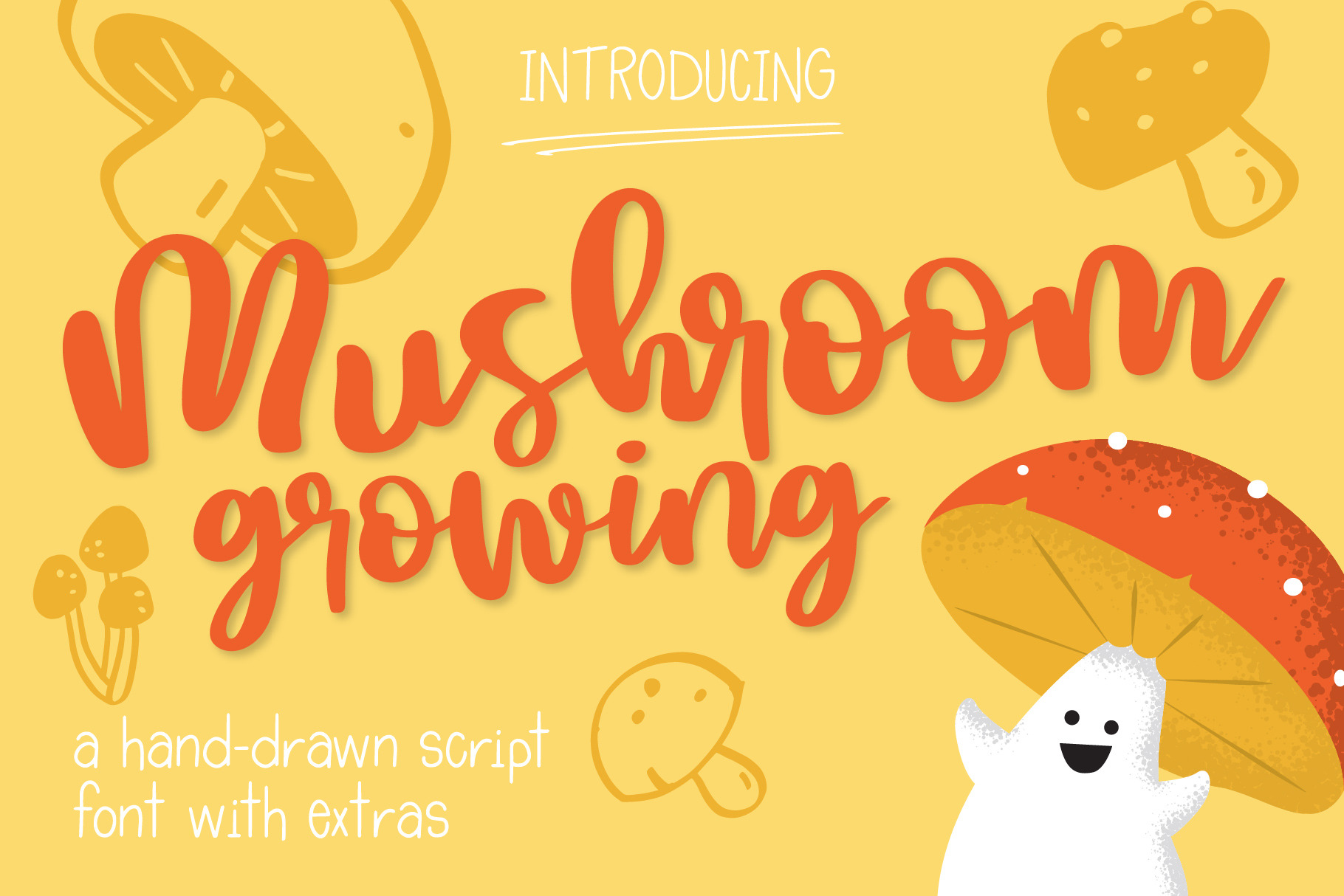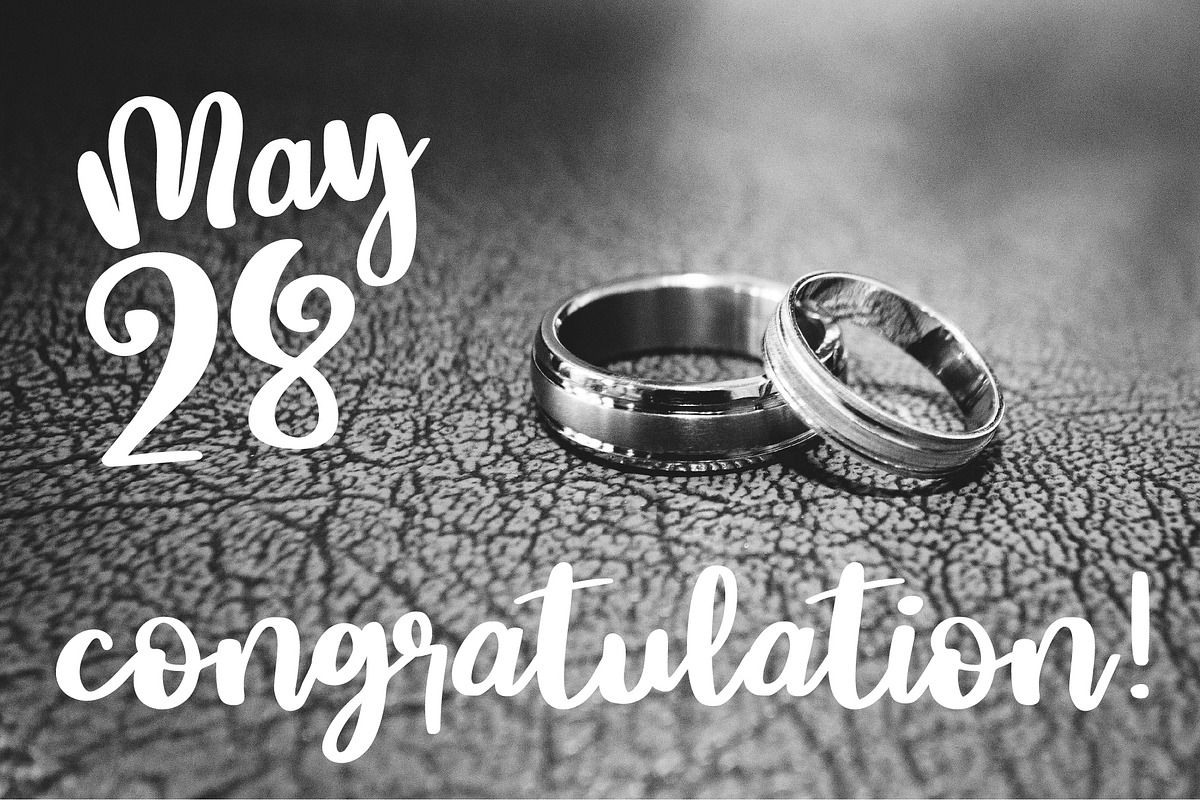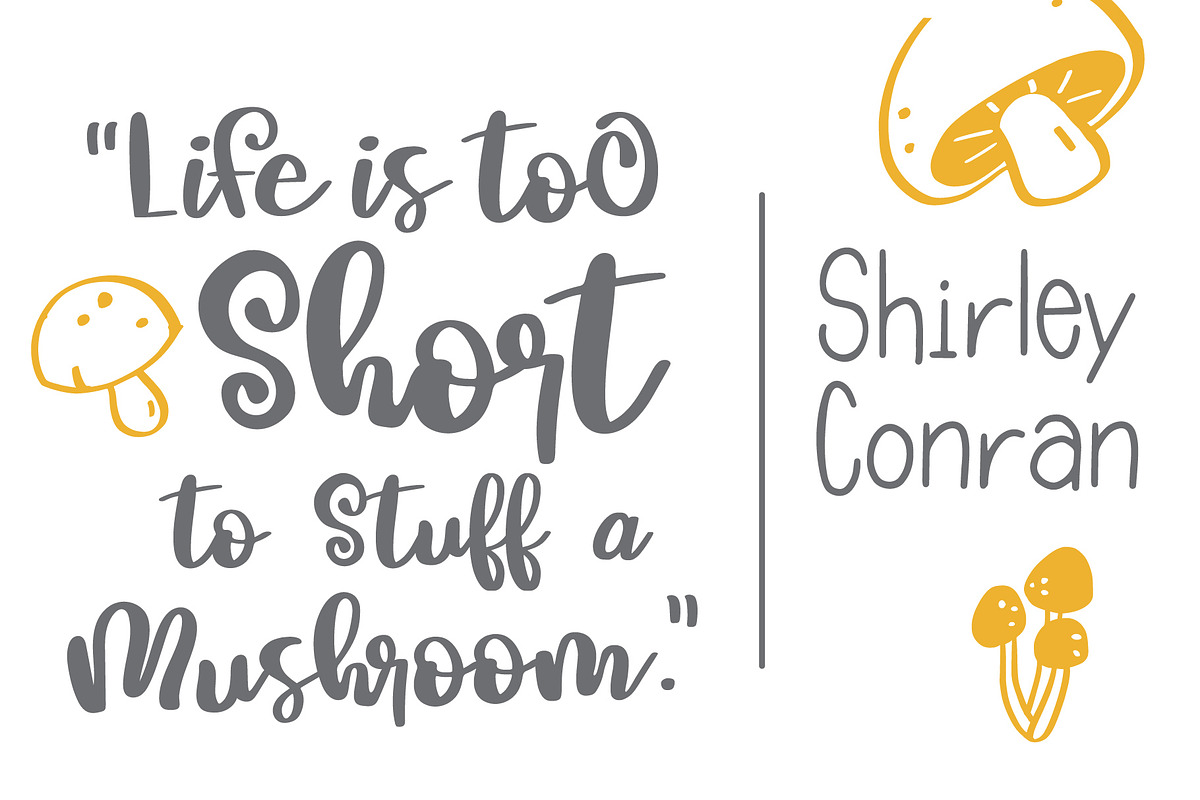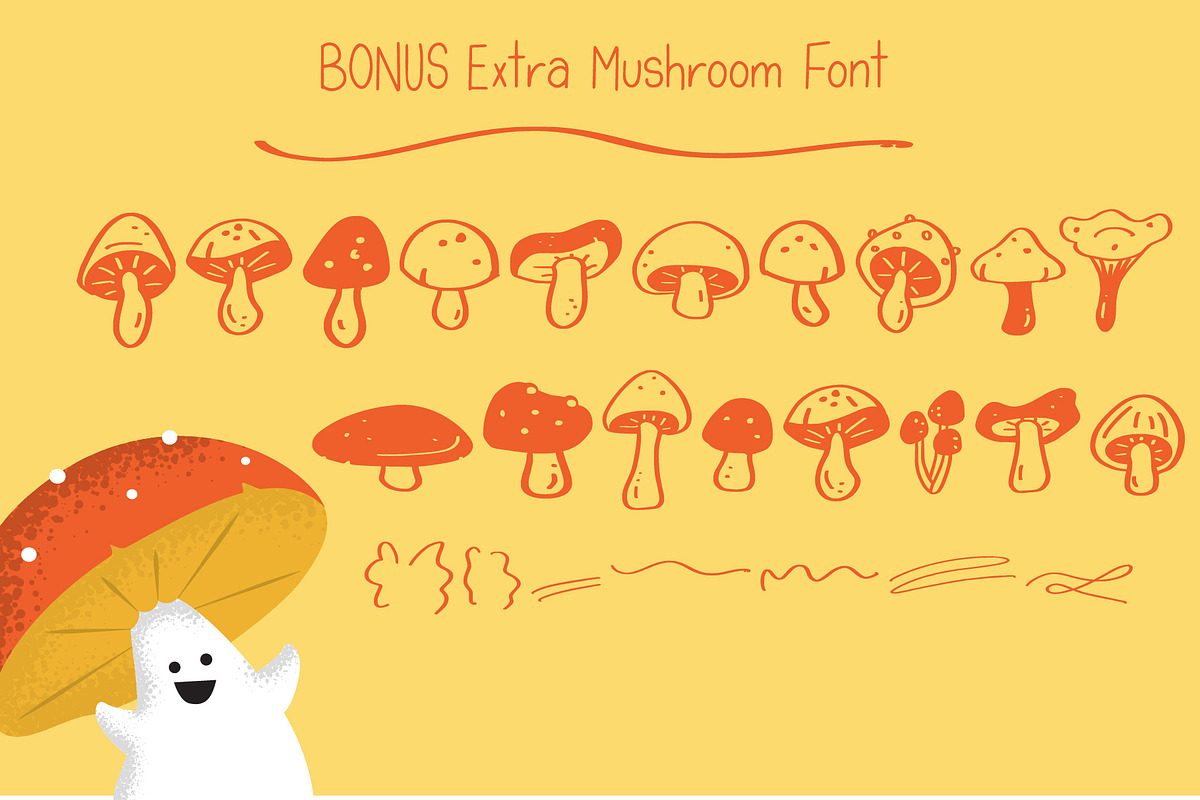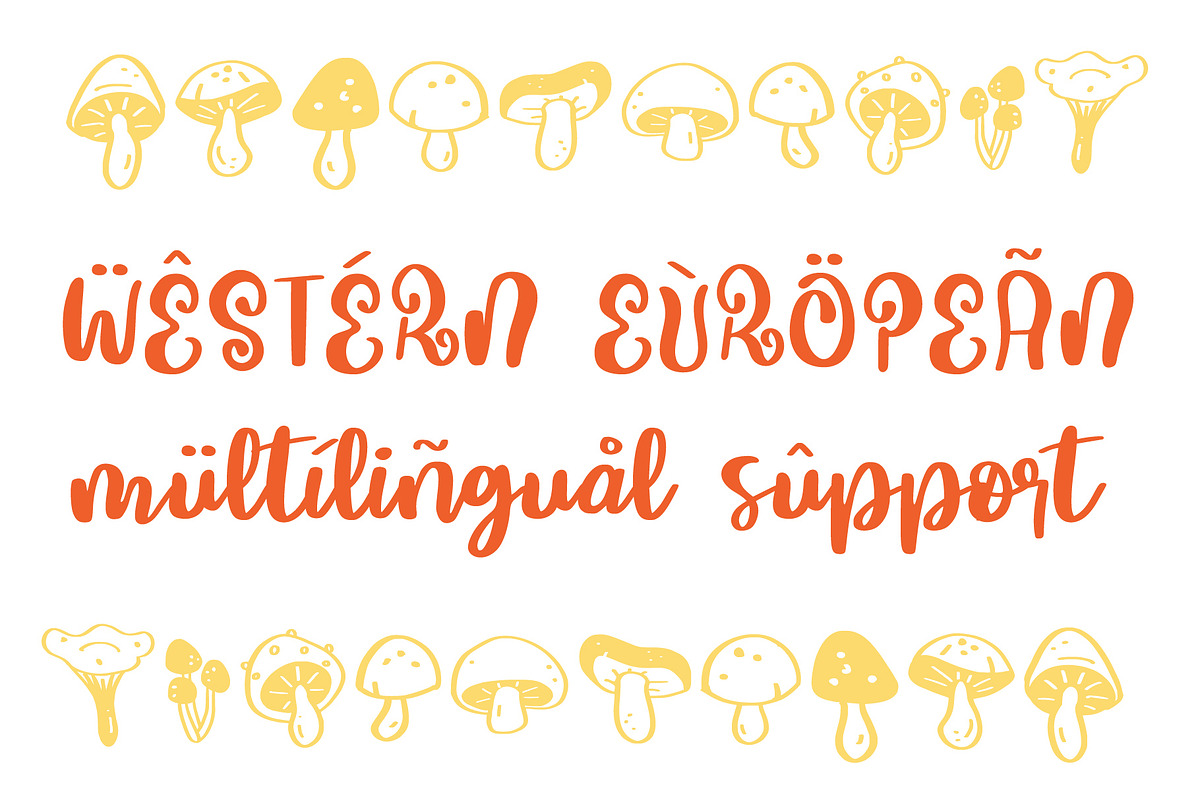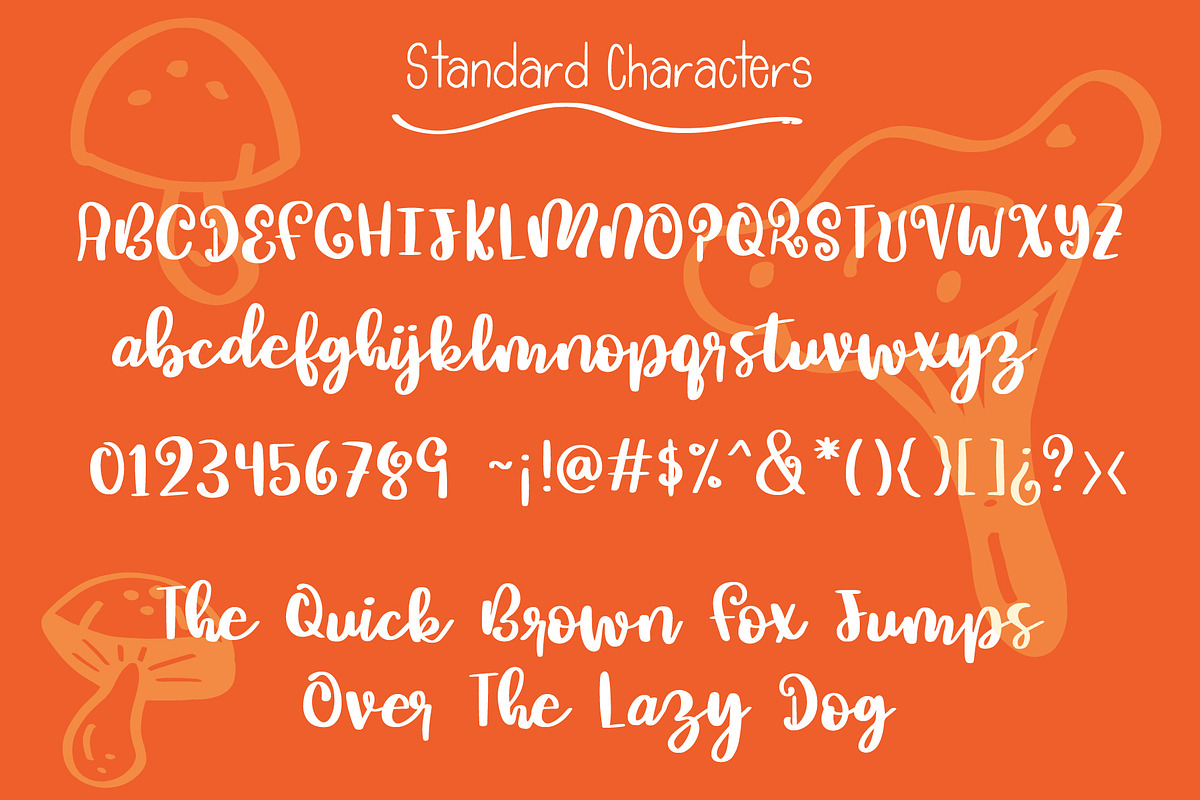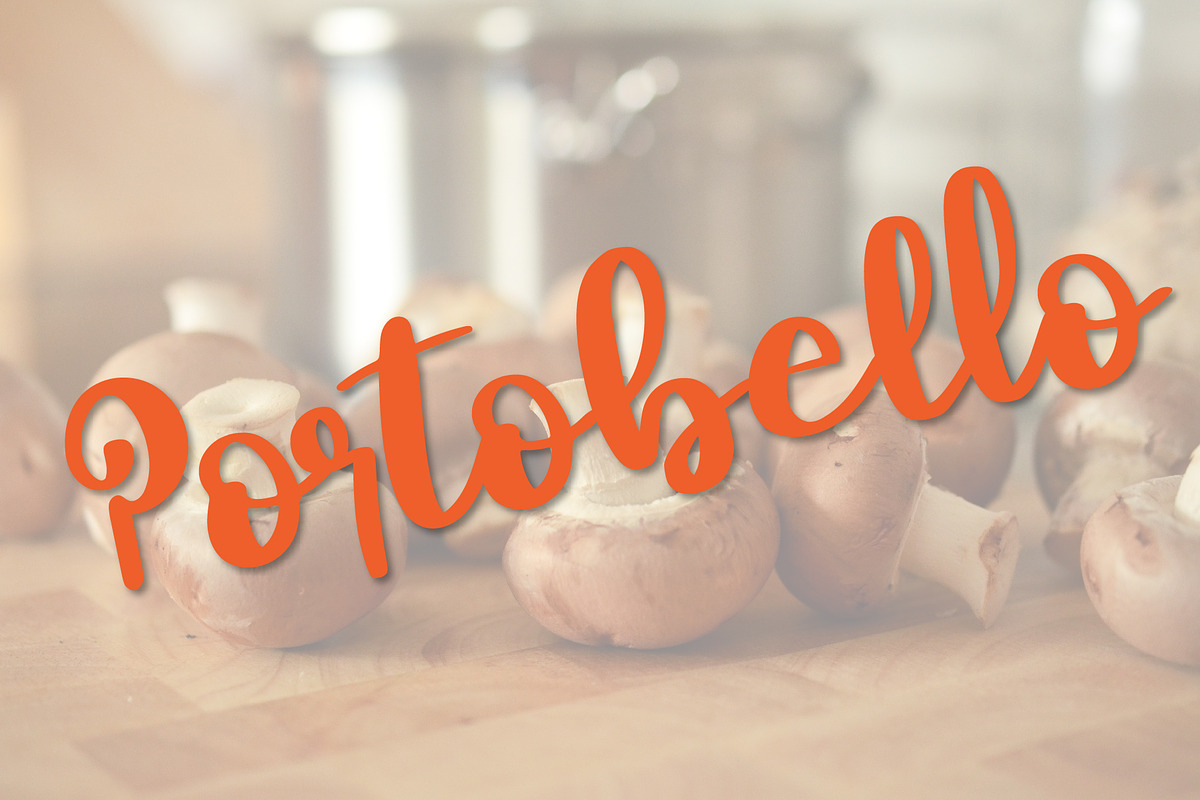
Mushroom Growing Script Font
Introducing, Mushroom Growing Script. A fun script font that was inspired by the shapes of mushrooms. This PUA font is perfect for professional designer, social media, or crafters.